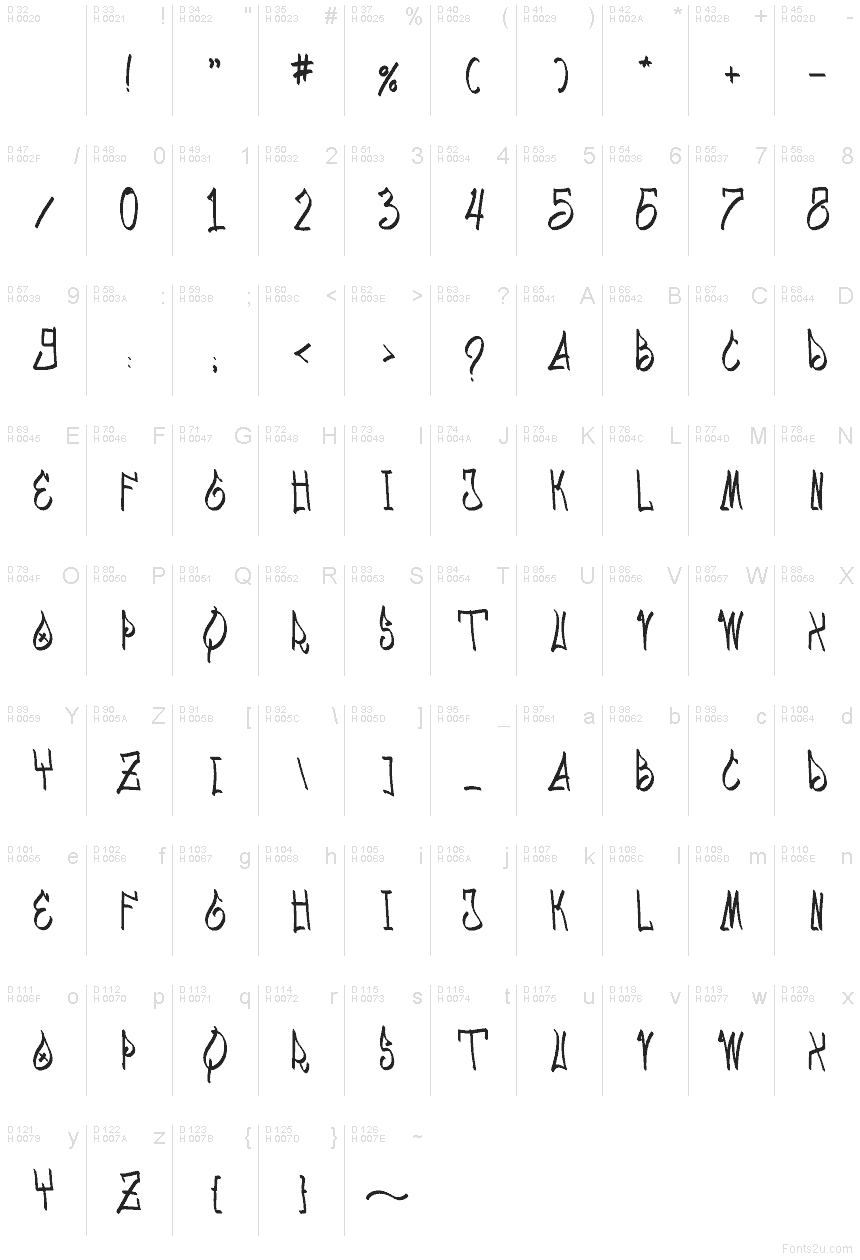
DUMBELITE
Dumbelite font by Studio Hello Good is a graffiti-inspired condensed font that embodies an edgy and urban aesthetic. Described as rebellious, expressive, and informal, the free display font sports street art influence that stands out instantly on any screen or printed project. Its thick characters may seem slightly mischievous, which makes every reading eye shine brightly.
Choose Dumbelite to design a poster or billboard dedicated to a new musicians’ album release. Use it for magazines headings, social media posts sharing political views or opinions about trends. The typeface is suitable for publishing and branding projects with book covers ideas being one of the many areas of use.